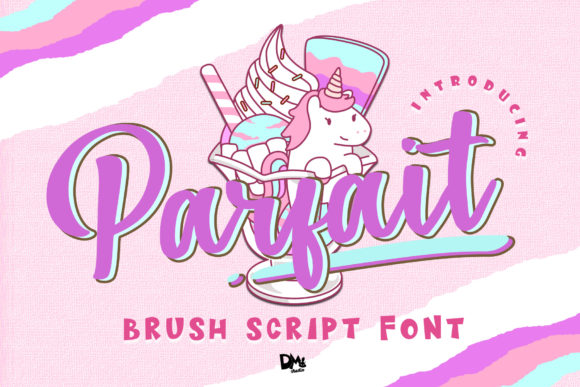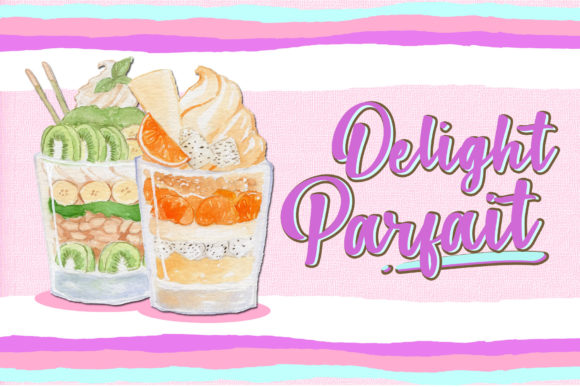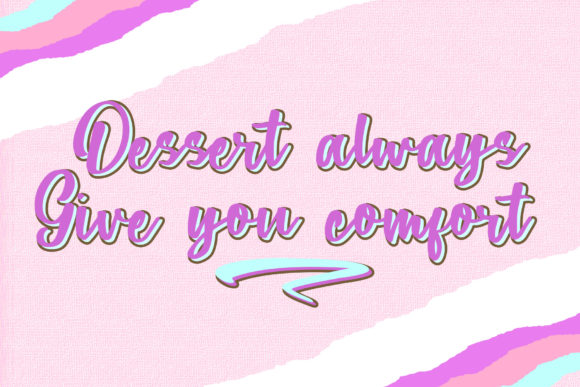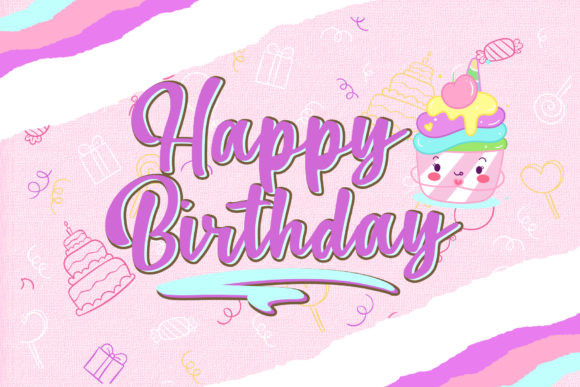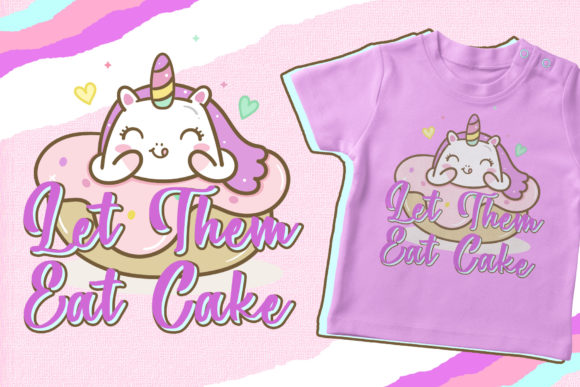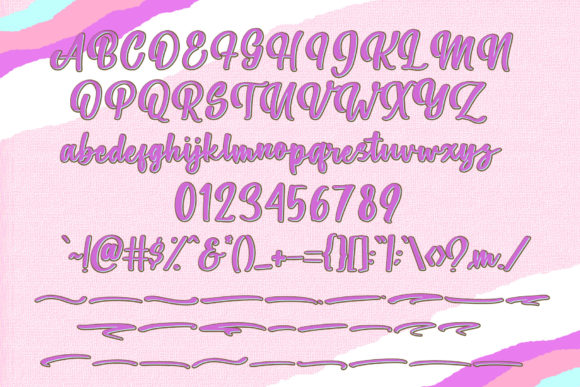
HomeScript FontsParfait Font Script Fonts Parfait Font FacebookXPinterestWhatsApp Parfait Font Poster 2 Parfait Font Poster 3 Parfait Font Poster 4 Parfait Font Poster 5 Parfait Font Poster 6 About Parfait Font Parfait is a sweet and original script with a unique style. It will turn any design idea into a true standout! DOWNLOAD ON CREATIVE FABRICAThis font is sold and delivered by Creative Fabrica. Font Canyon may earn a commission if you buy through this link. People also explored Monsters Font Crisp Font Begin Font Blackwing Font Wedding Flower Font Honied Font Montella Script Azure Font Candlewick Font 280 0 TagsParfait Font Previous articleDotted Reader FontNext articleBlack Catty Script Font LEAVE A REPLY Cancel reply Comment: Please enter your comment! Name:* Please enter your name here Email:* You have entered an incorrect email address! Please enter your email address here Website: Save my name, email, and website in this browser for the next time I comment. Personal Use Free Ontel Personal Use Free Read more about this font Squariess Personal Use Free Read more about this font Sushi Stroke Personal Use Free Read more about this font Ayam Bakar Personal Use Free Read more about this font BLOG How to Cut Any Font on Cricut: Convert a Font to SVG (Free) Turn any font into a clean SVG so it cuts crisp on Cricut - a quick 3-step workflow using a free font-to-SVG tool. Where to Buy American Fonts Online in 2024 The 10 Best Handwriting Fonts to Add Personality to Your Designs Transform Your Website: Elevate Your Typography with 7 Best Web Font Generators